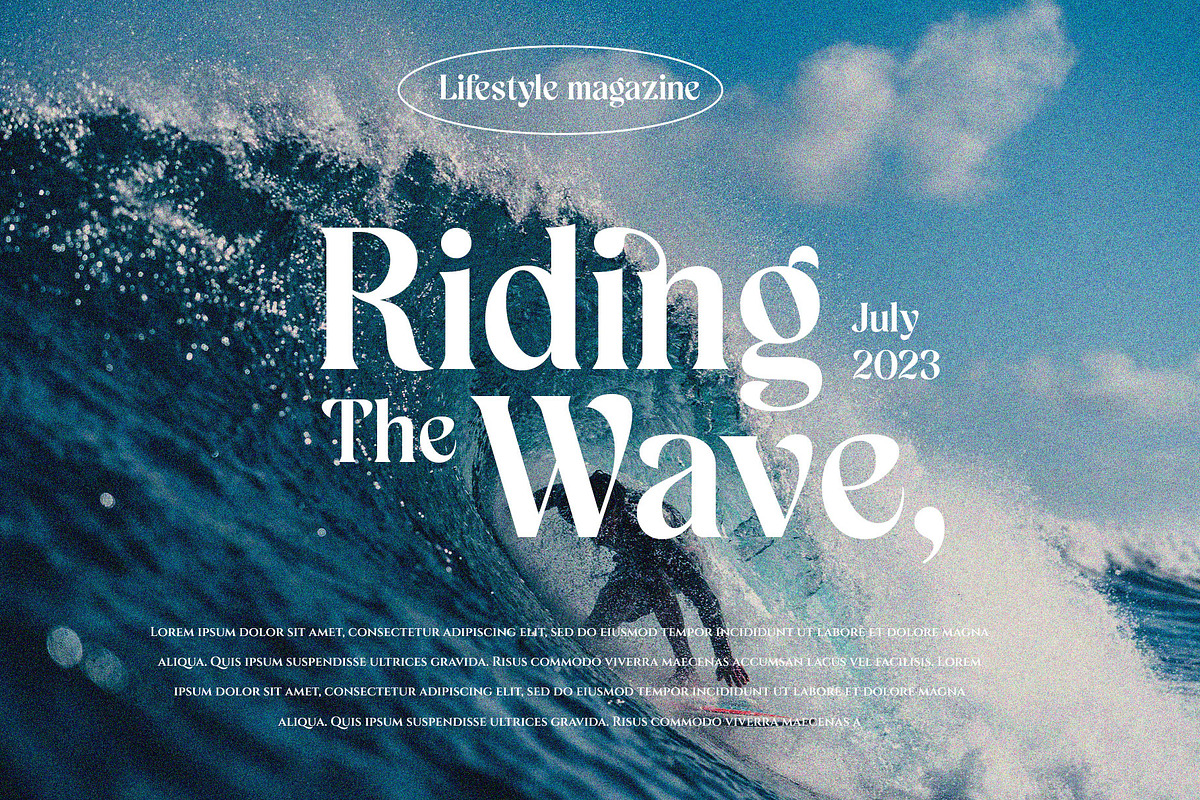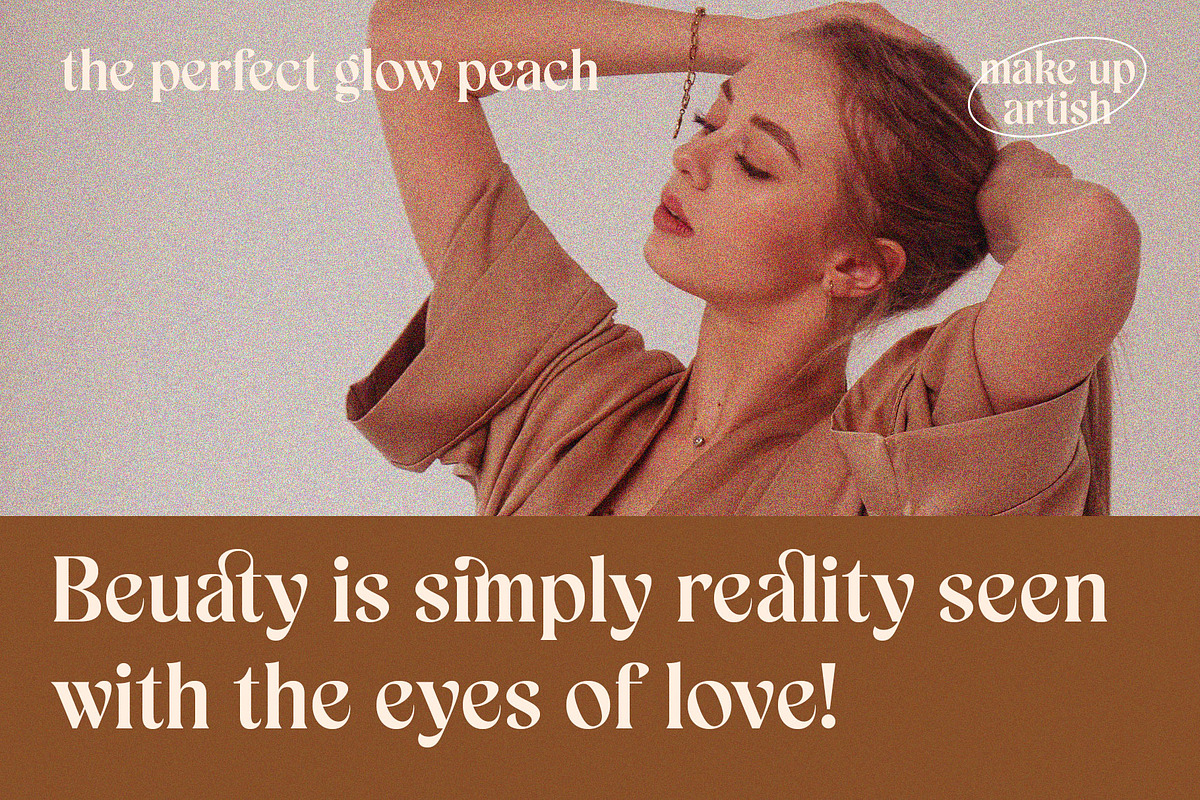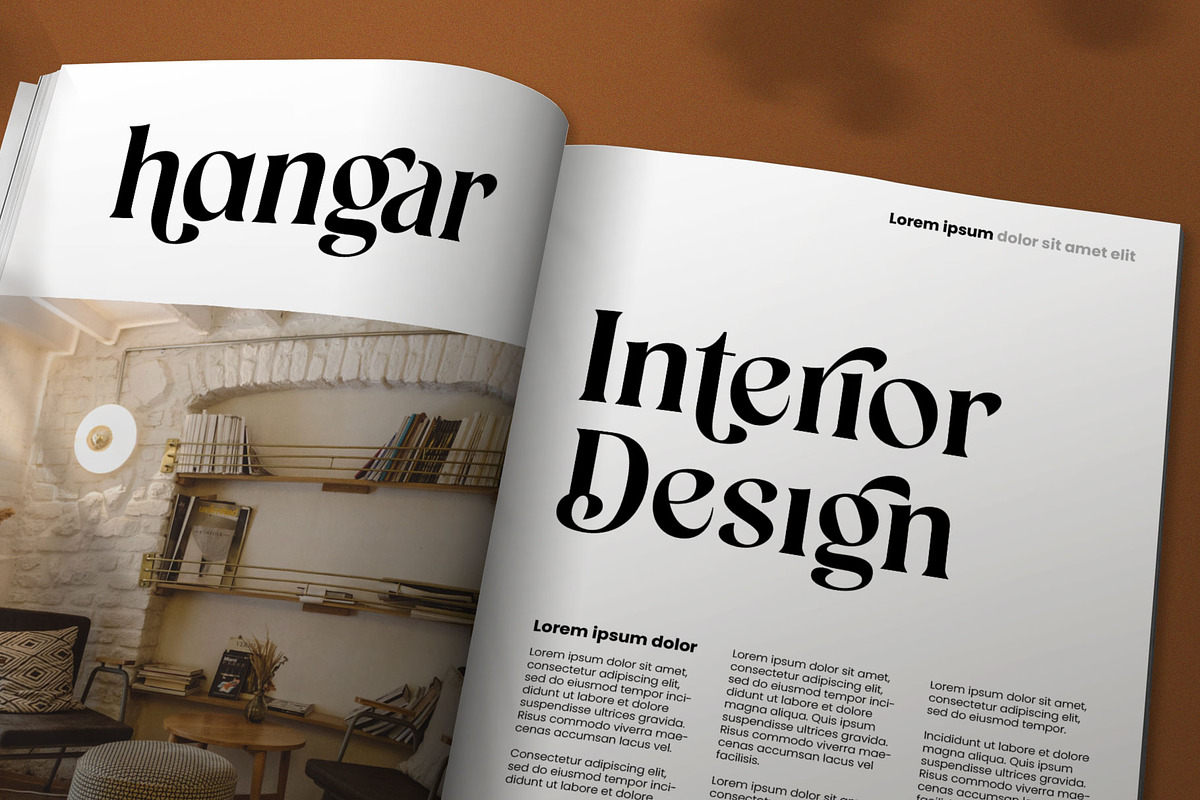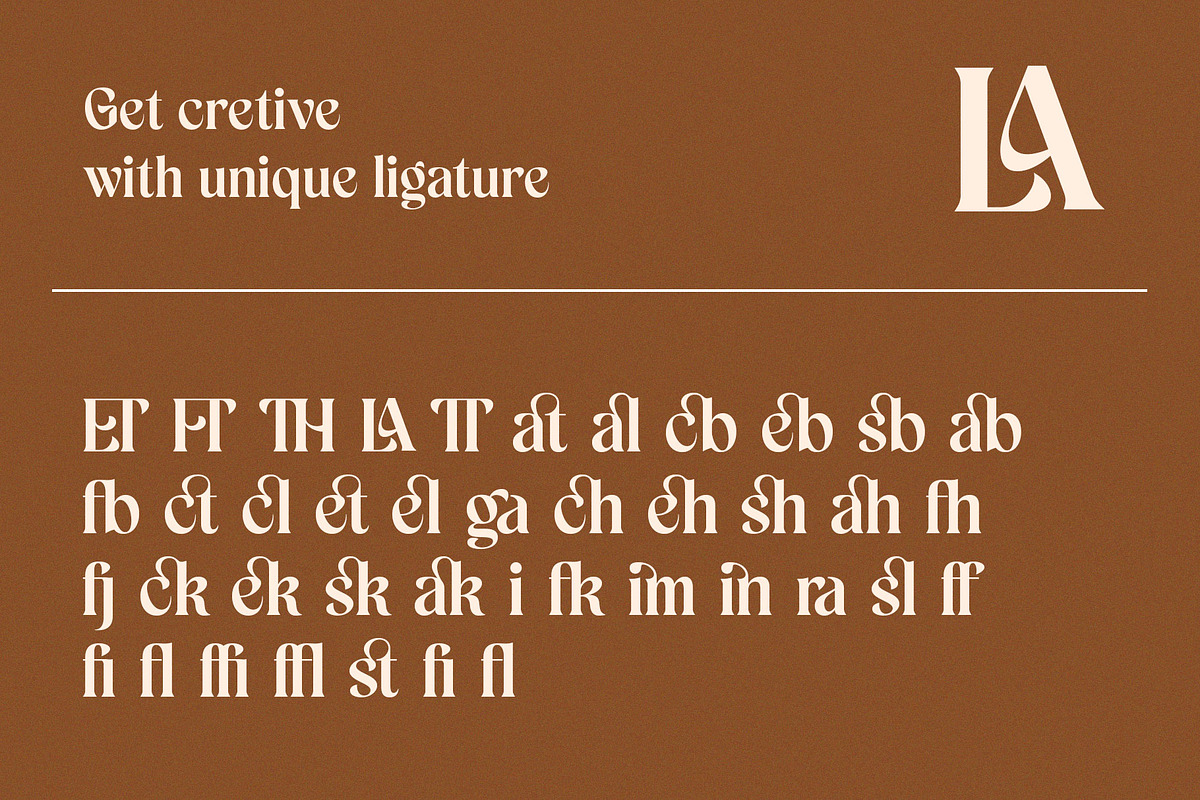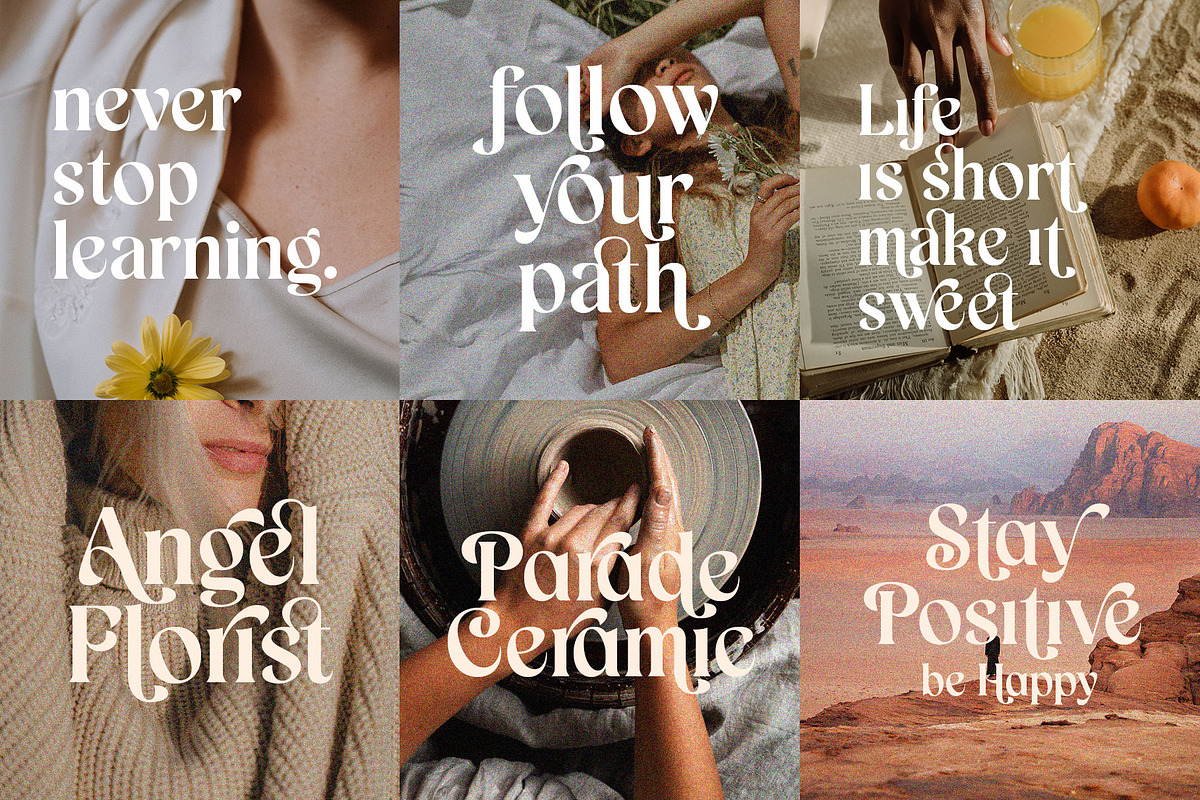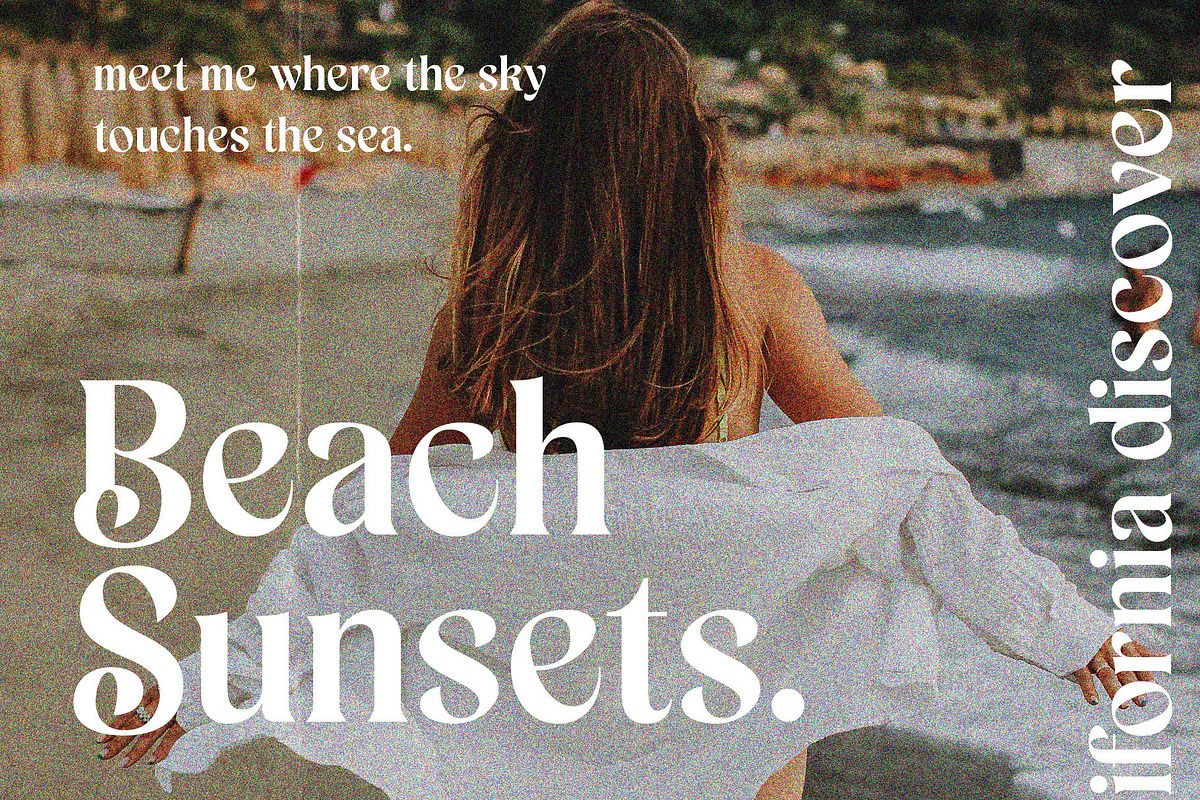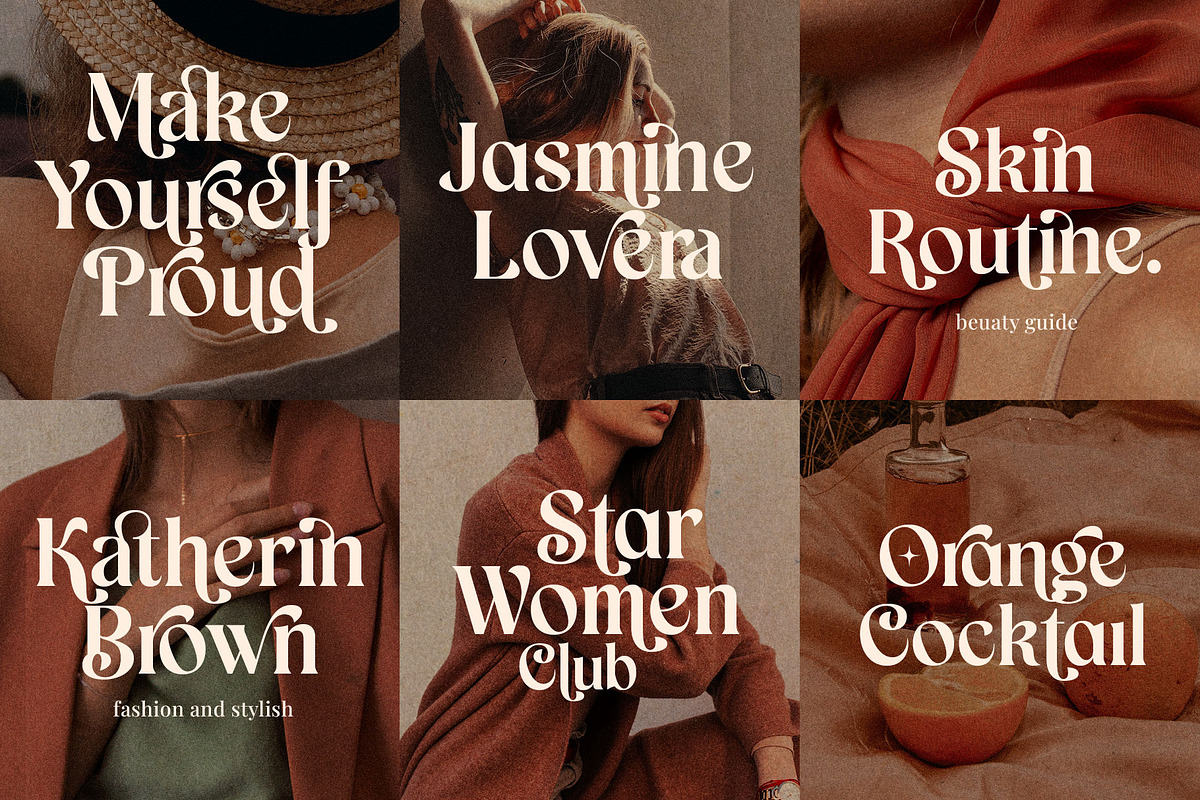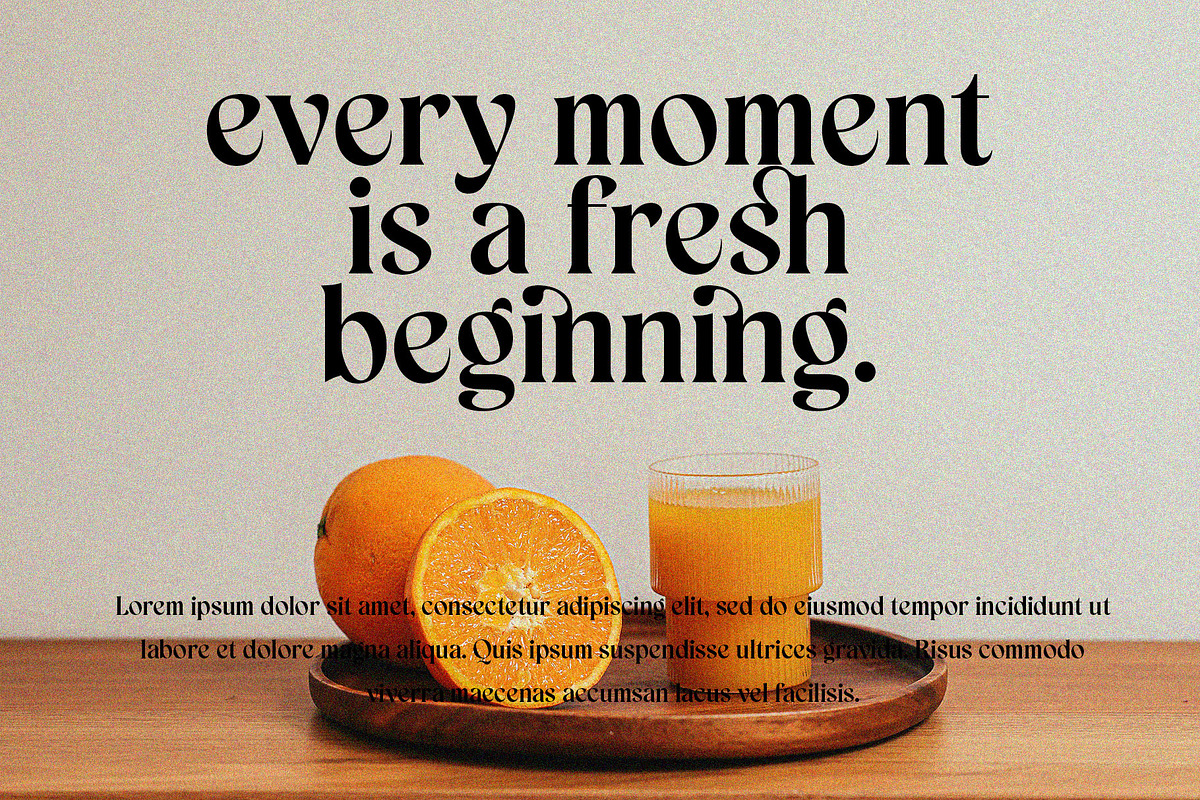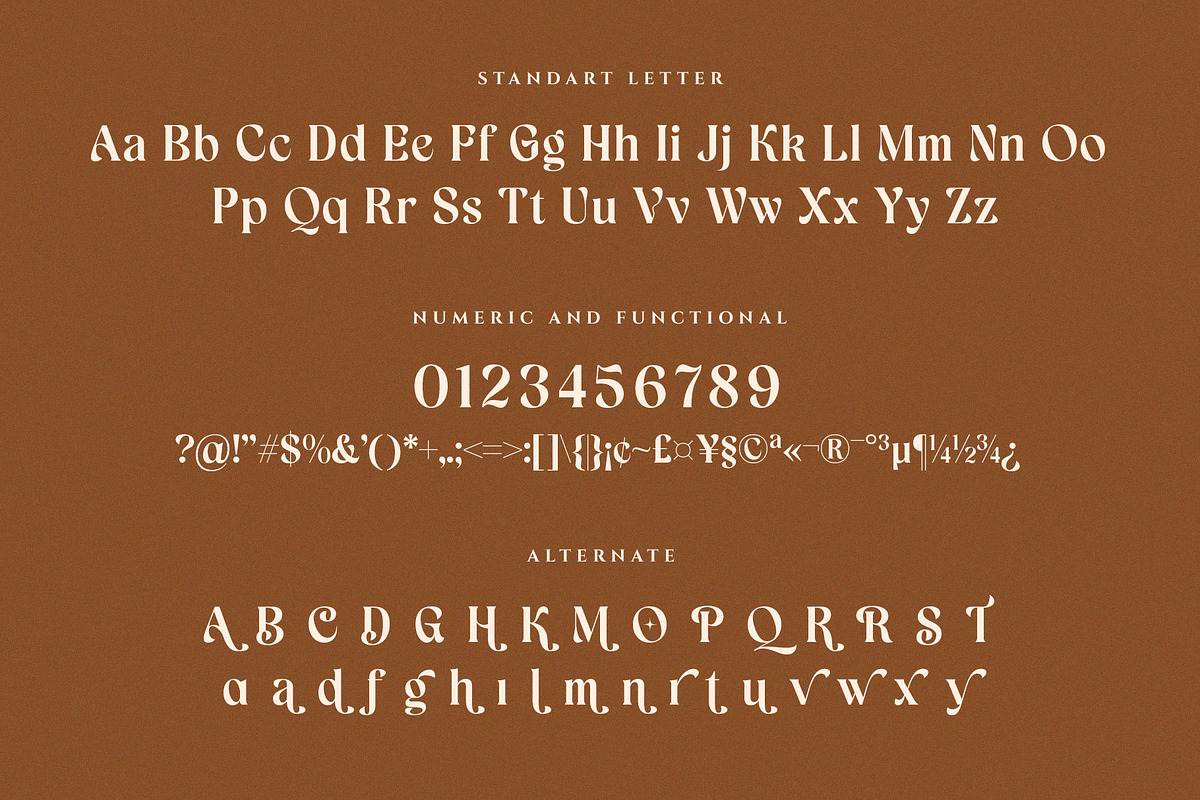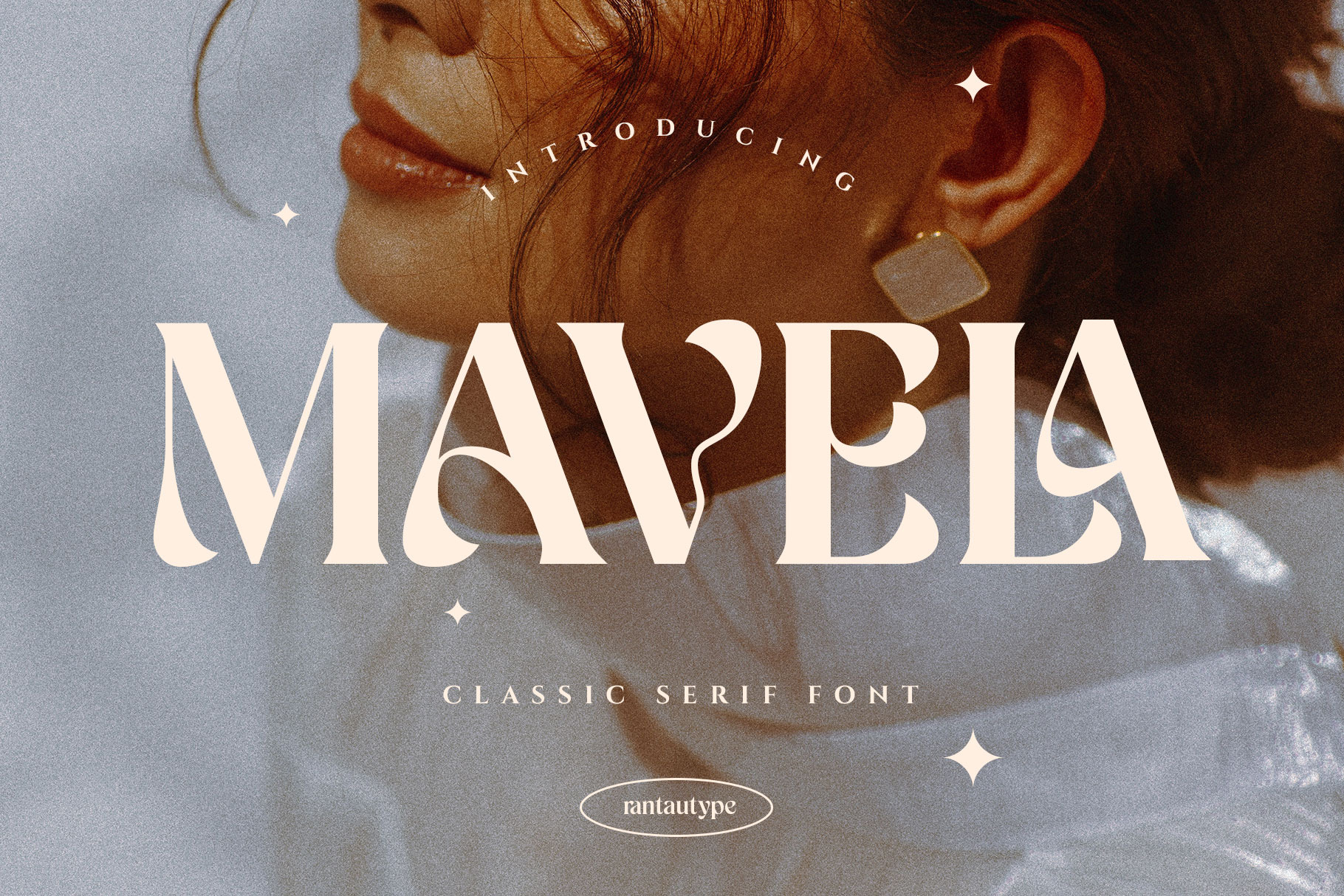
Mavela Unique Classic Serif font
Hi Ladies and Gentleman ! Proudly present elegant serif font “Mavela”, by rantautype.
Mavela is a unique display serif font that embraces classic and nineteen vibes. Its delicate curves and refined details create a sense of A flirtatiously charming 80's retro-inspired. Mavela bringing retro back into the 21st century to branding, editorial designs, and more. With its versatility and contemporary appeal.
Mavela is a beautiful choice for any creative endeavor, chic, lifestyle design such as logos, title, cover, branding, display, magazine and more. Now you have more choice when using mavela for typography.
- Standar letter A-Z and a-z
- Alternate and Ligature
- Multilinggual support